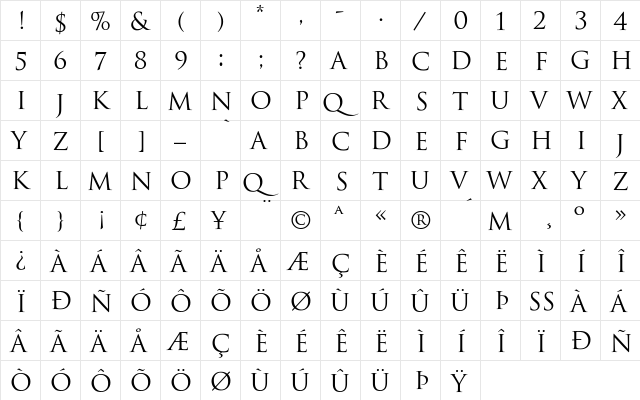
Dwitan-Regular Regular
Design Context for Dwitan-Regular Typeface
Dwitan-Regular is a composed and adaptable typeface that performs quietly and consistently across a wide range of design contexts.